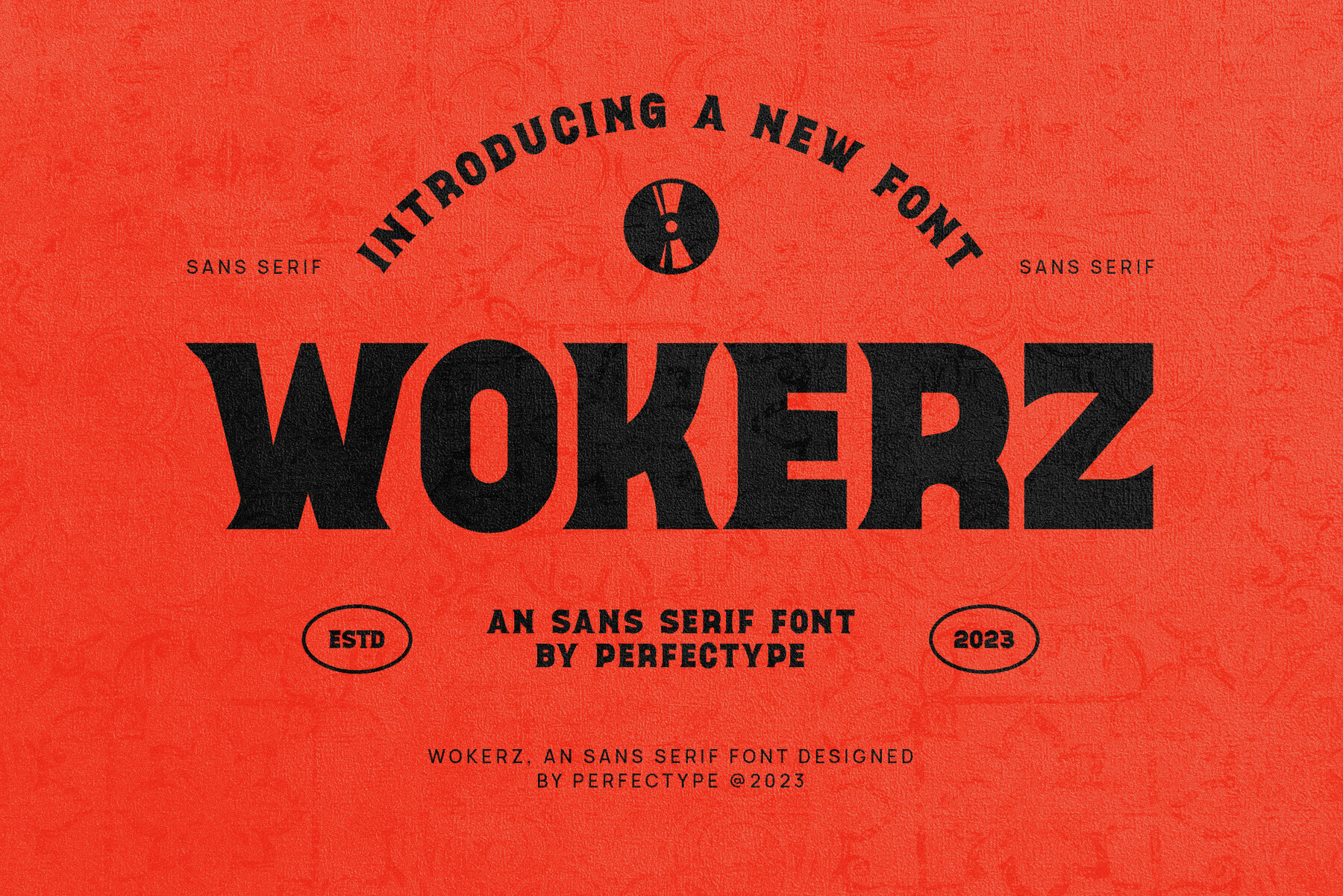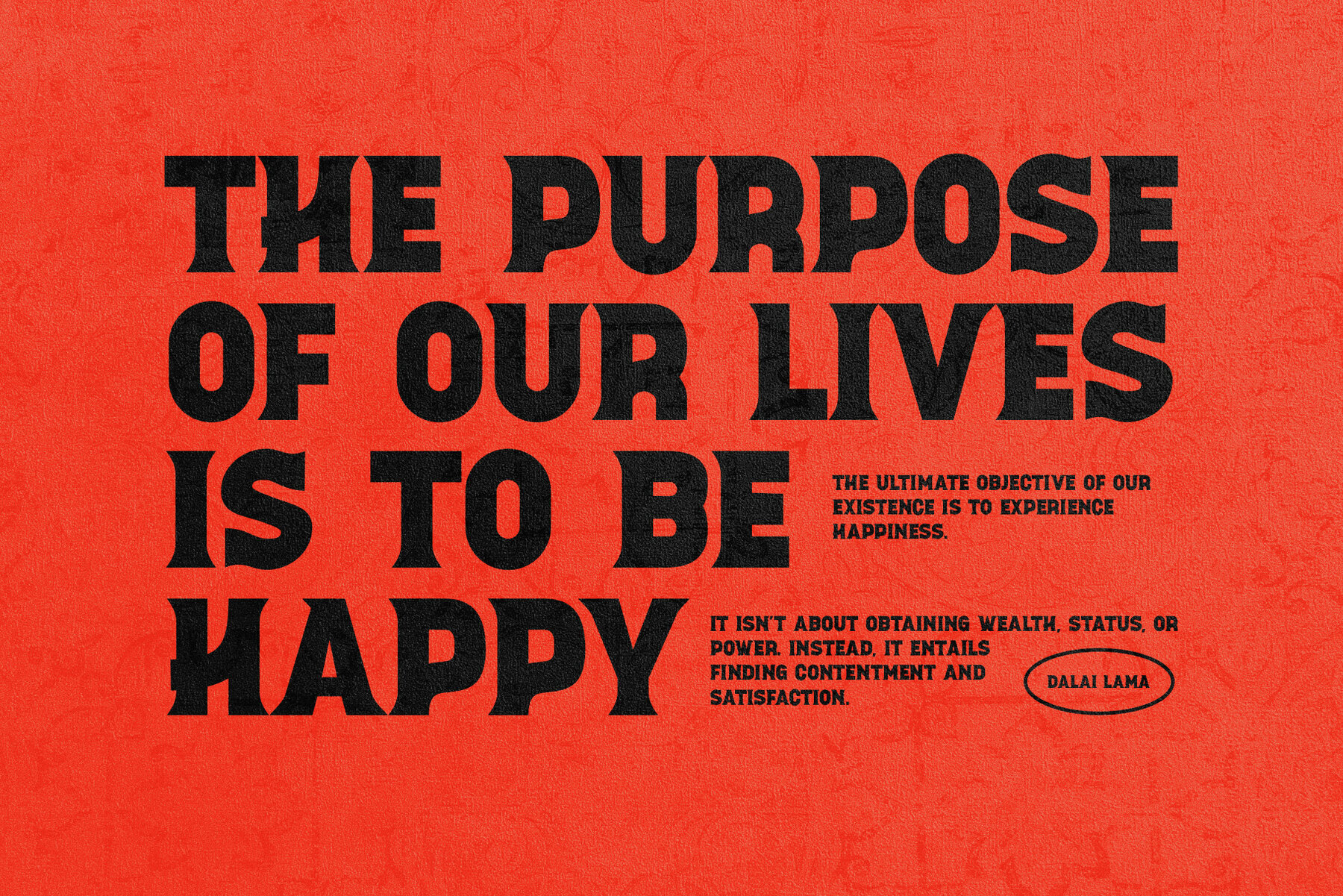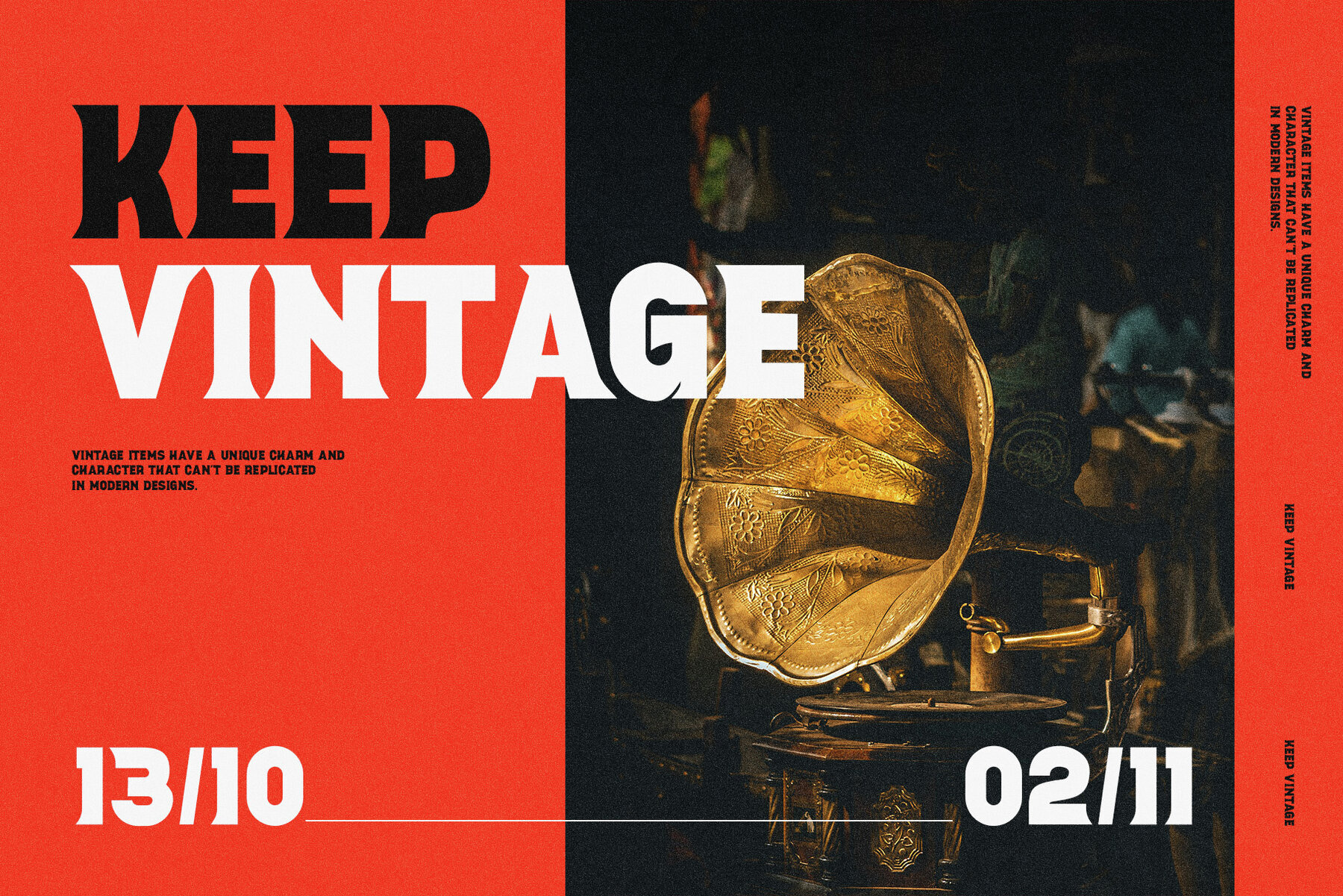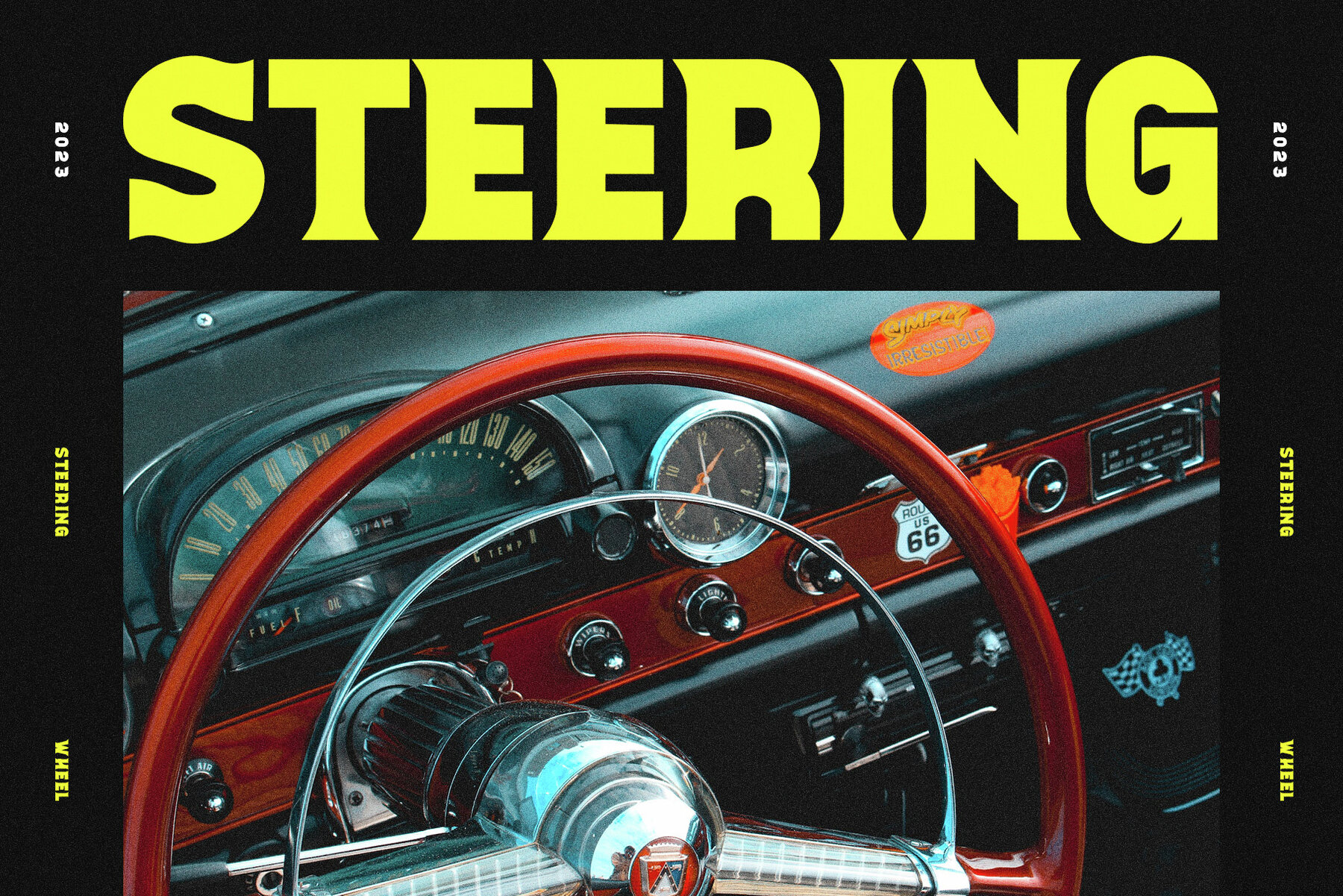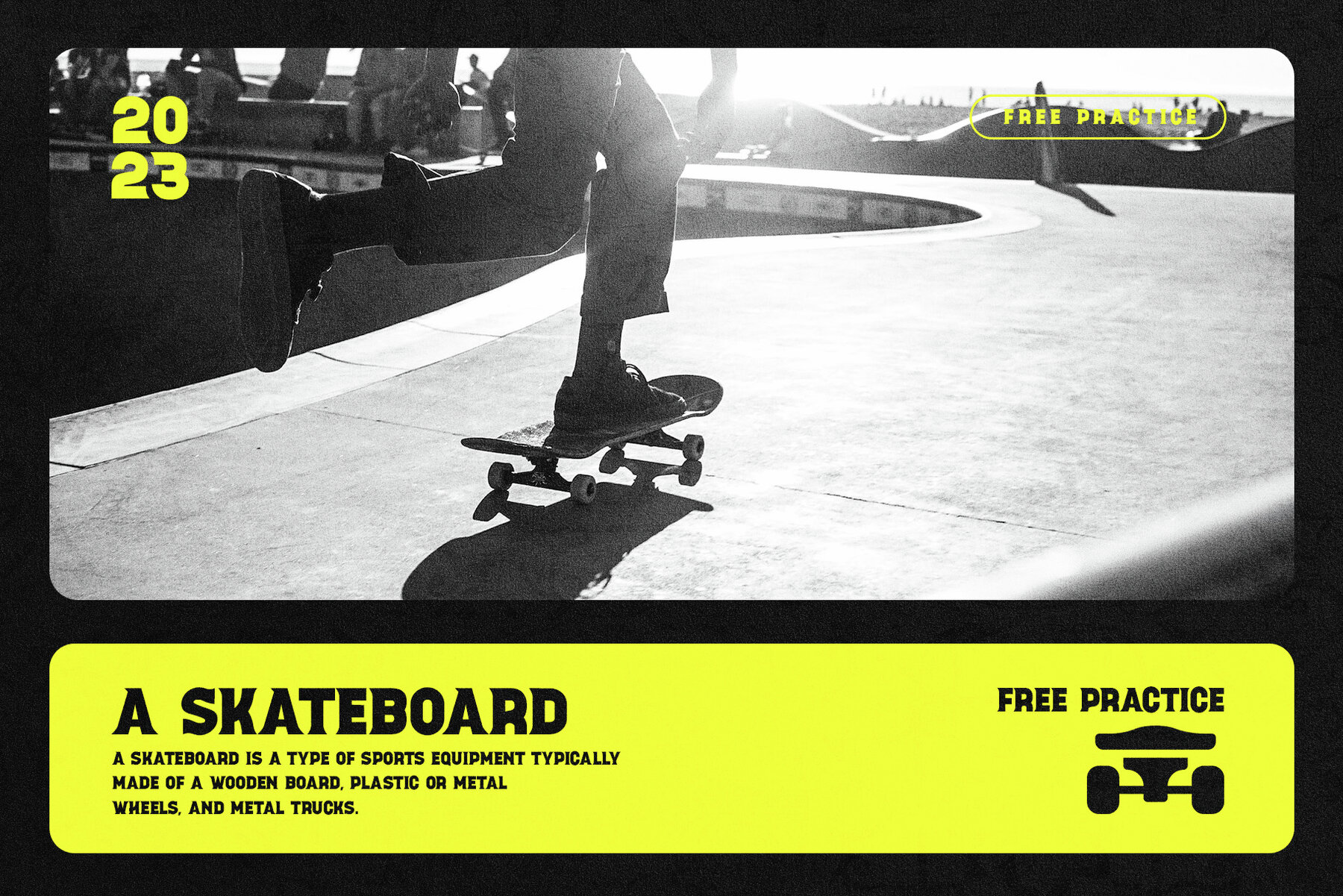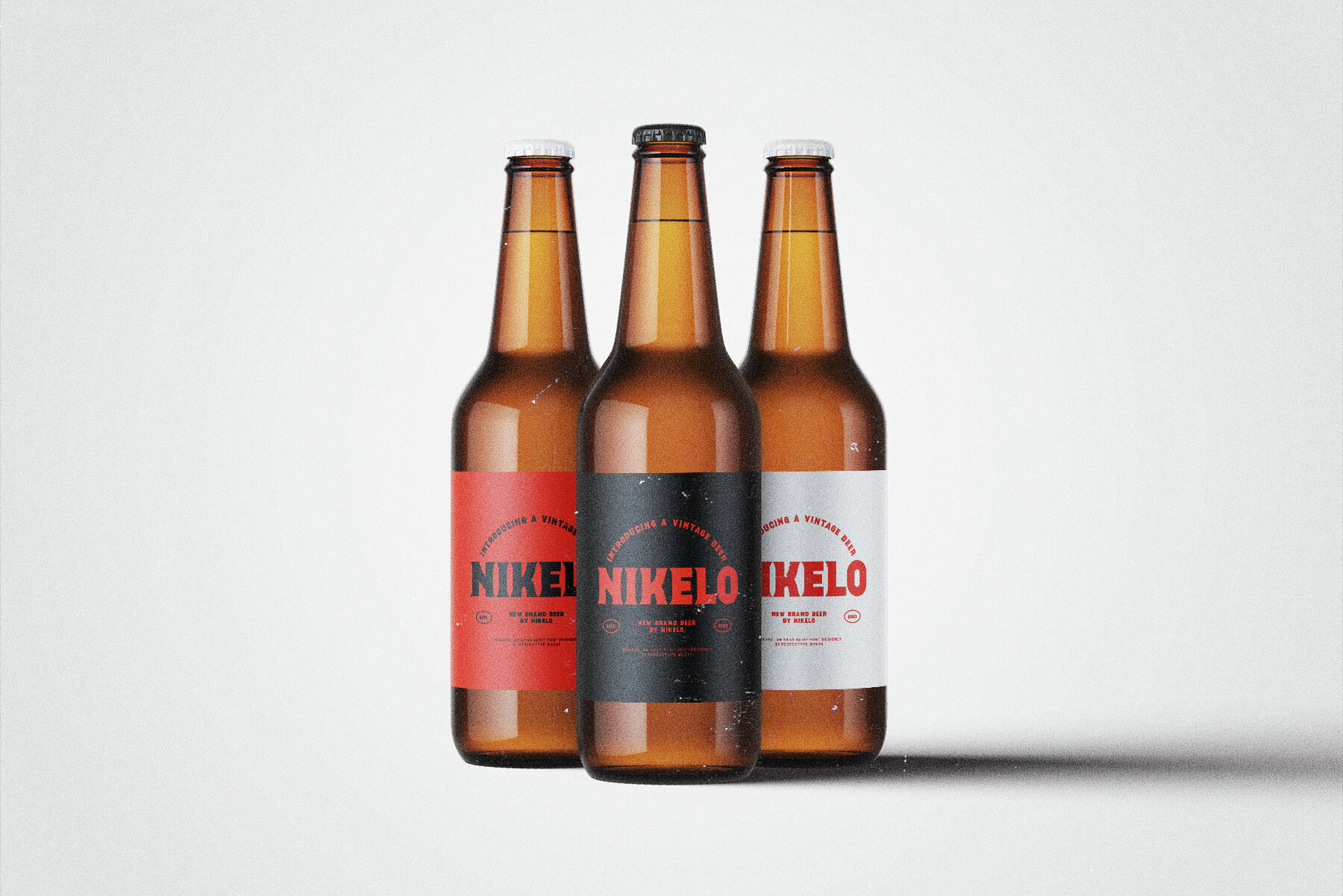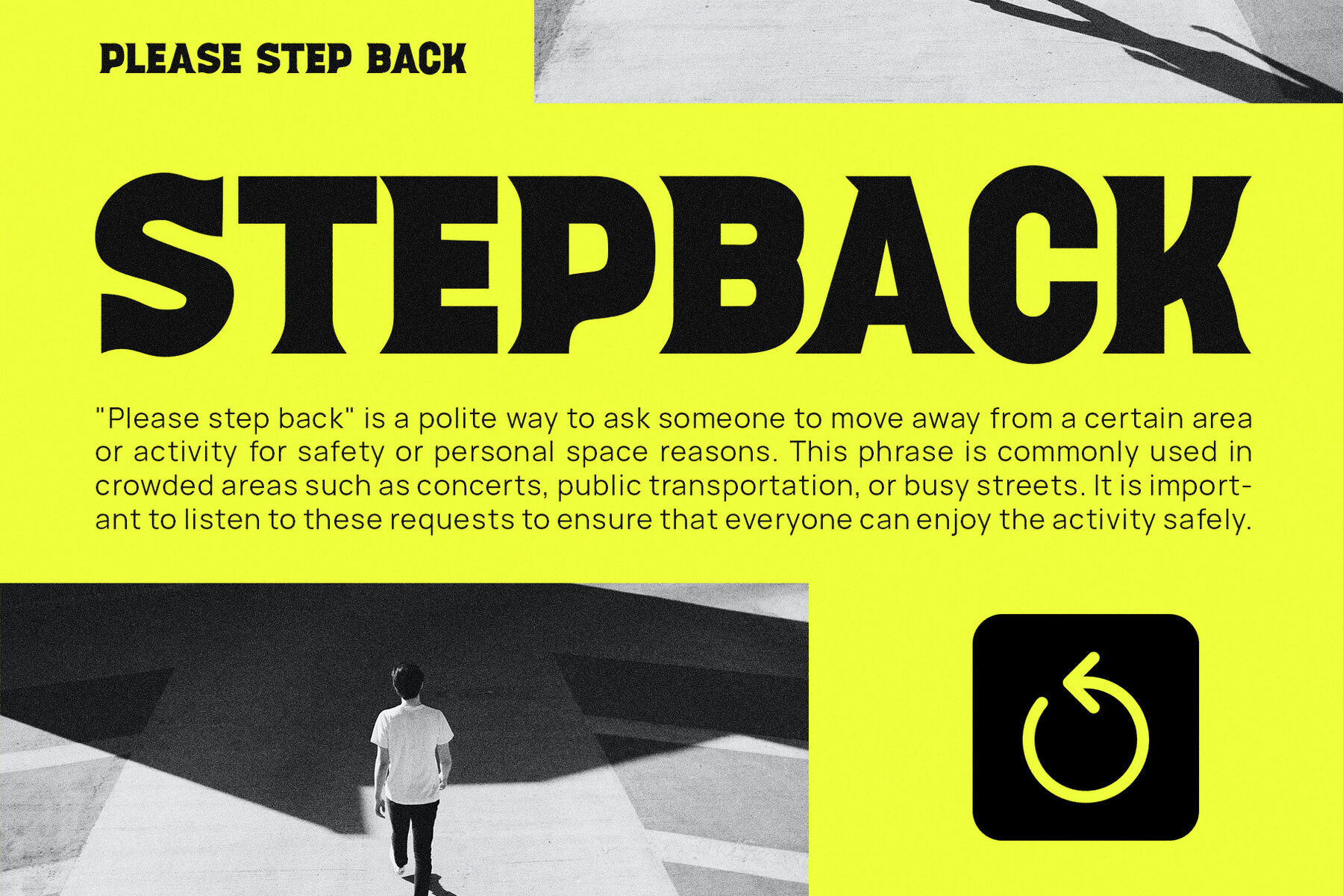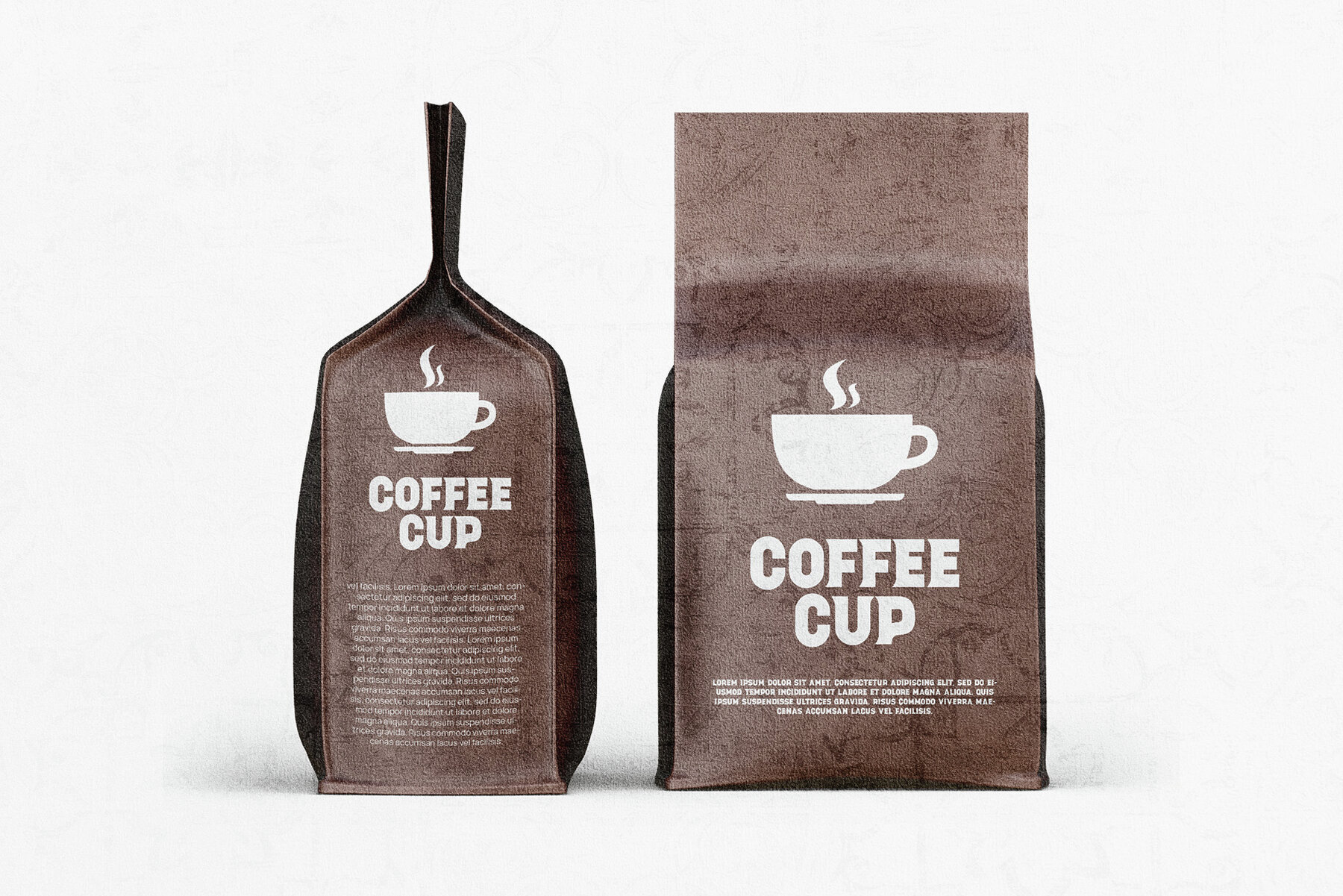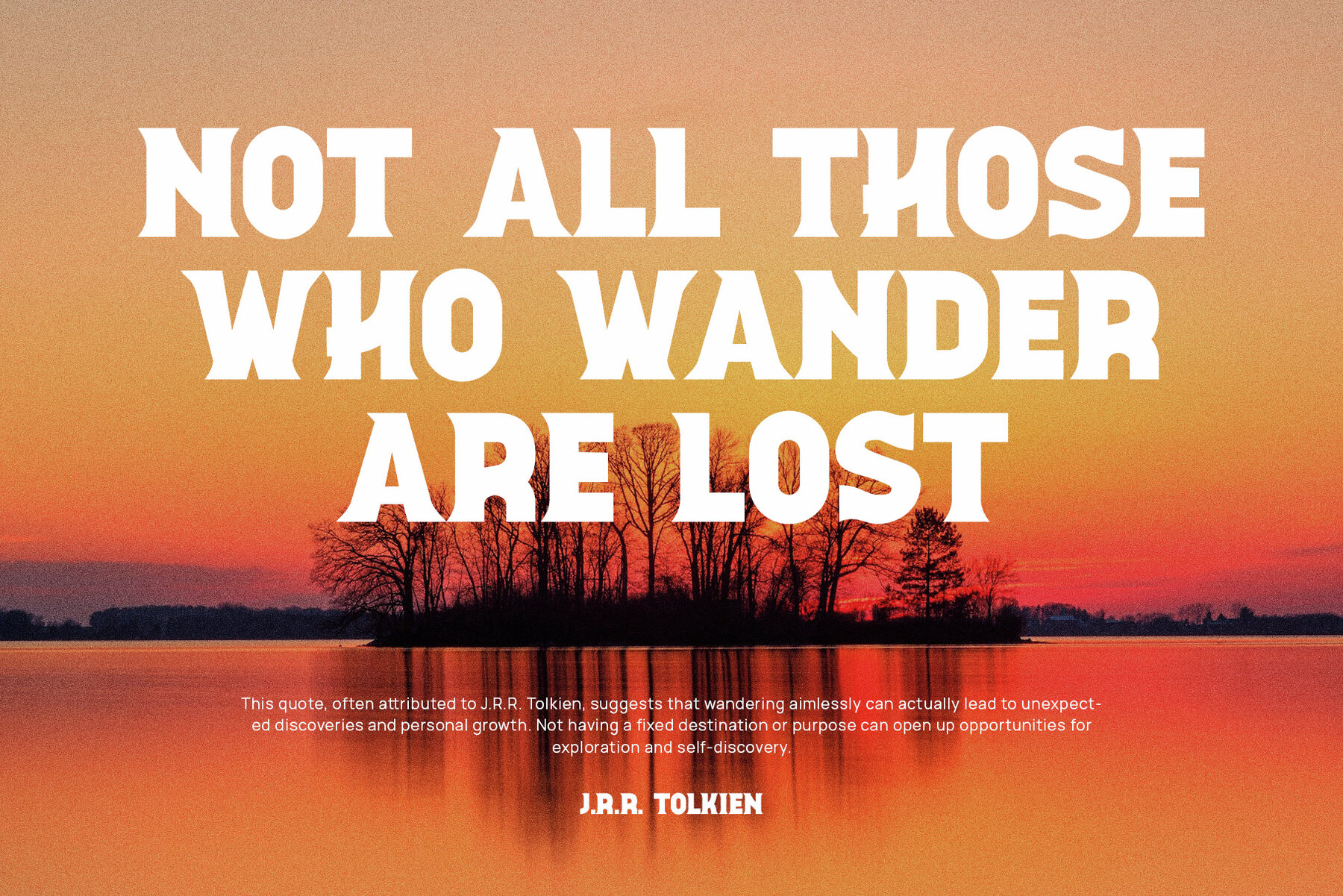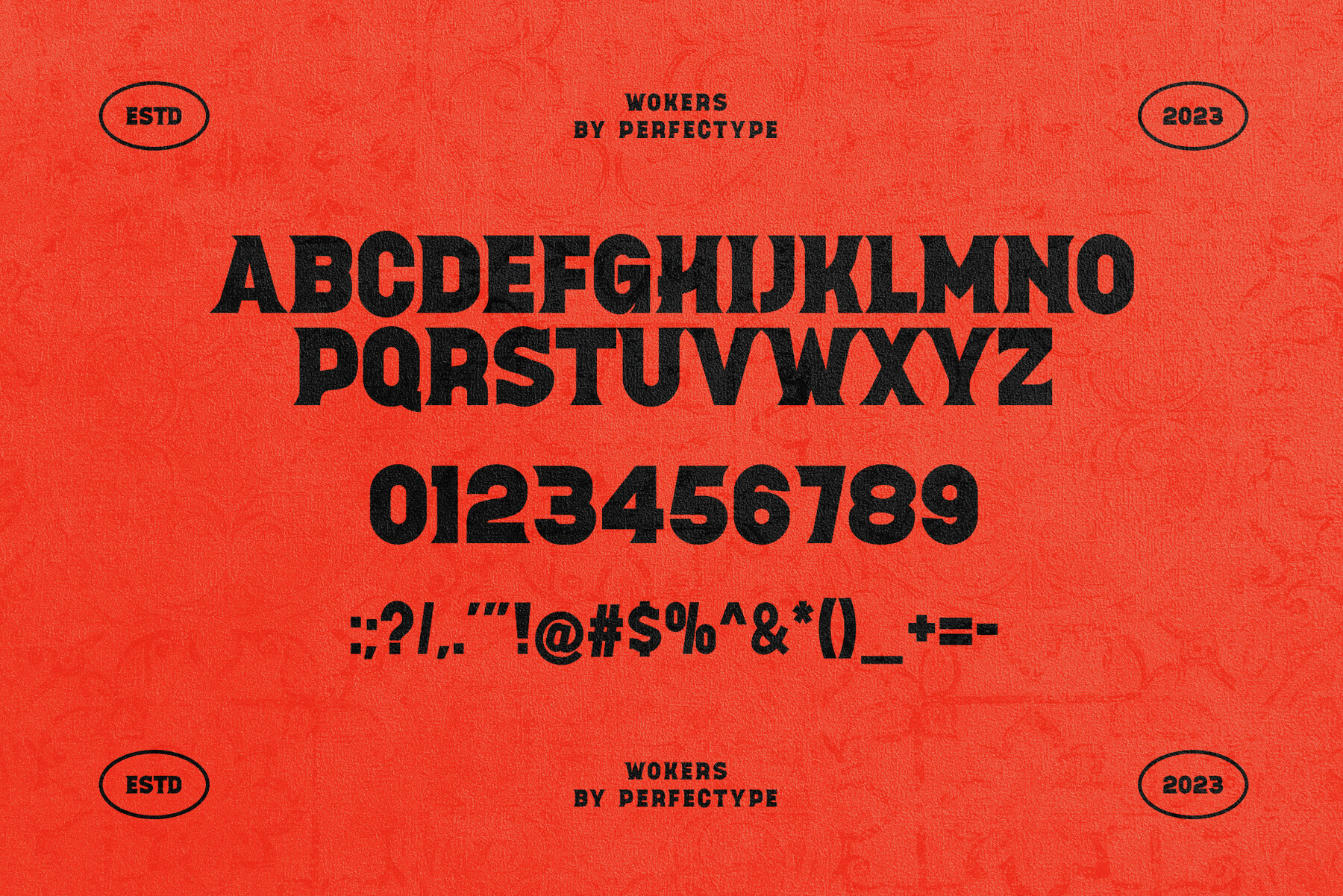
Wokerz Font
Wokerz Regular
Wokerz is a vintage serif font that exudes a retro and robust aesthetic. This font is ideal for a wide range of uses, including branding projects, logos, social media posts, advertisements, labels, product packaging, photography, wedding designs, watermarks, invitation product designs, stationery, and other creative projects, crafted to ensure high authenticity and style. For optimal results, using Adobe Illustrator or Adobe Photoshop is suggested. Enjoy the versatility of Wokerz in your projects, and feel free to reach out with any questions you might have.Wokerz: Vintage Serif Font with a Retro Vibe by Perfectype Studio